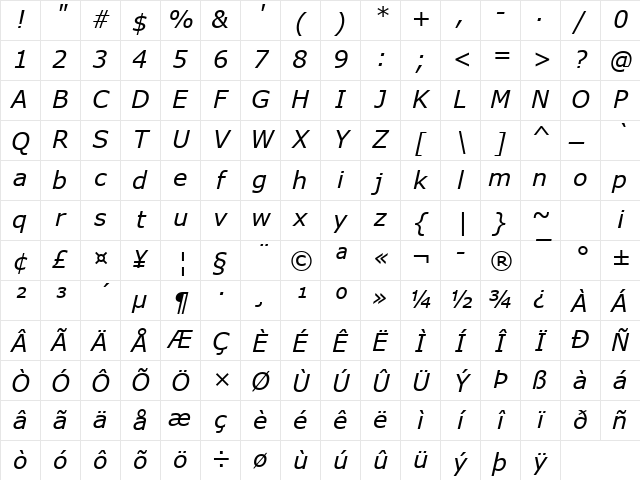
Complete Verdana Italic glyph index. Displaying only characters natively supported by Verdana Italic font.
Verdana is a composed and adaptable typeface that performs quietly and consistently across a wide range of design contexts. The slanted form adds forward momentum and visual energy.
Pro Tip: Use Verdana for emphasis, pull quotes, and subheadings where its slanted energy can add rhythm to the layout.